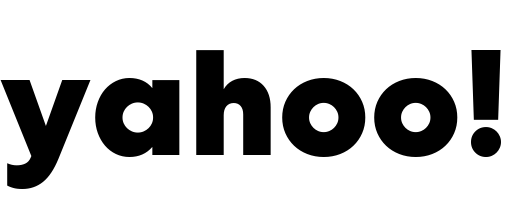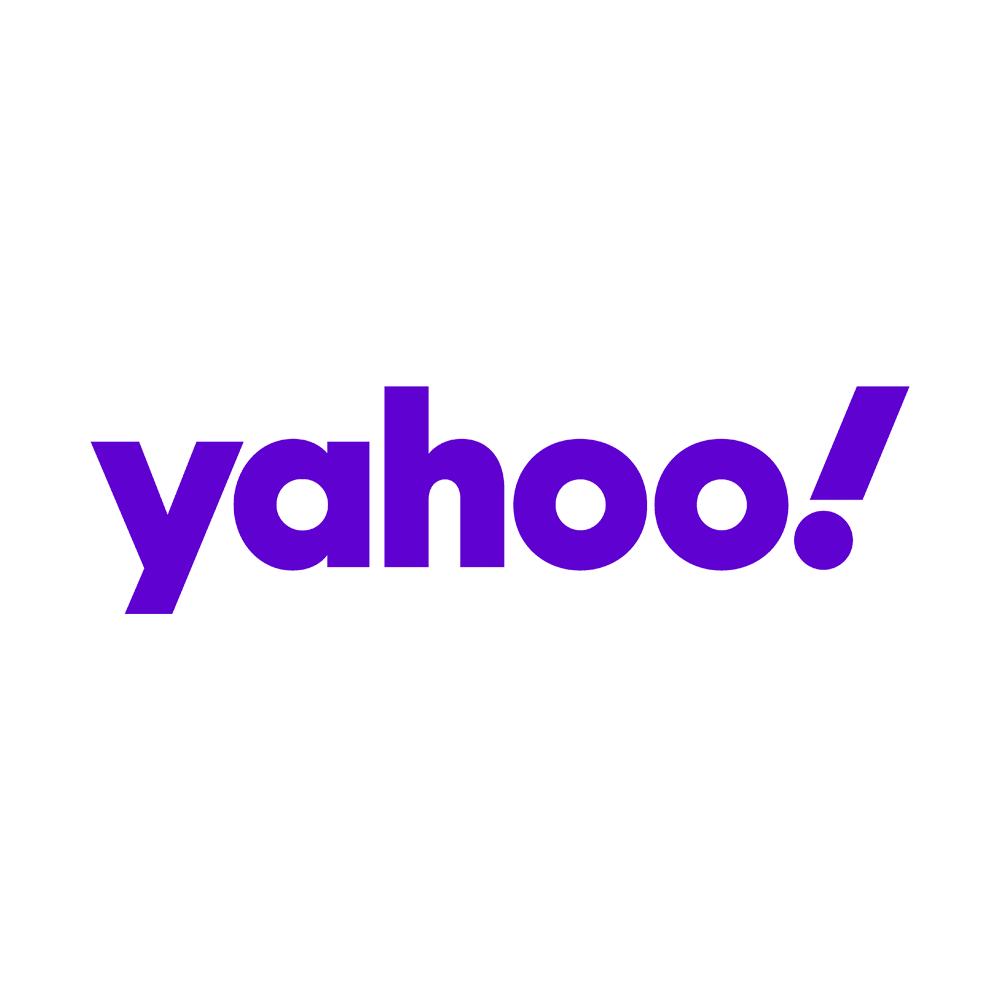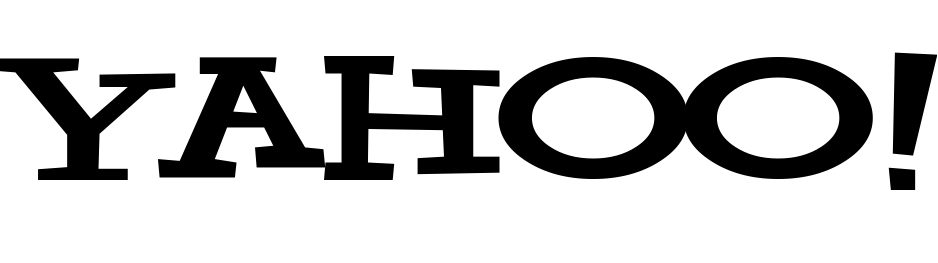
Yahoo Font
FinanceYahoo is a web services provider that offers a search engine, email service, news, finance, and more. It was founded in 1994 and acquired by Verizon Communications in 2017.
The Yahoo logo uses a modified version of Centra No2 Extrabold which you can learn more about here.
The old Yahoo logo was custom made but replicated as Yahoo font by GautFonts.